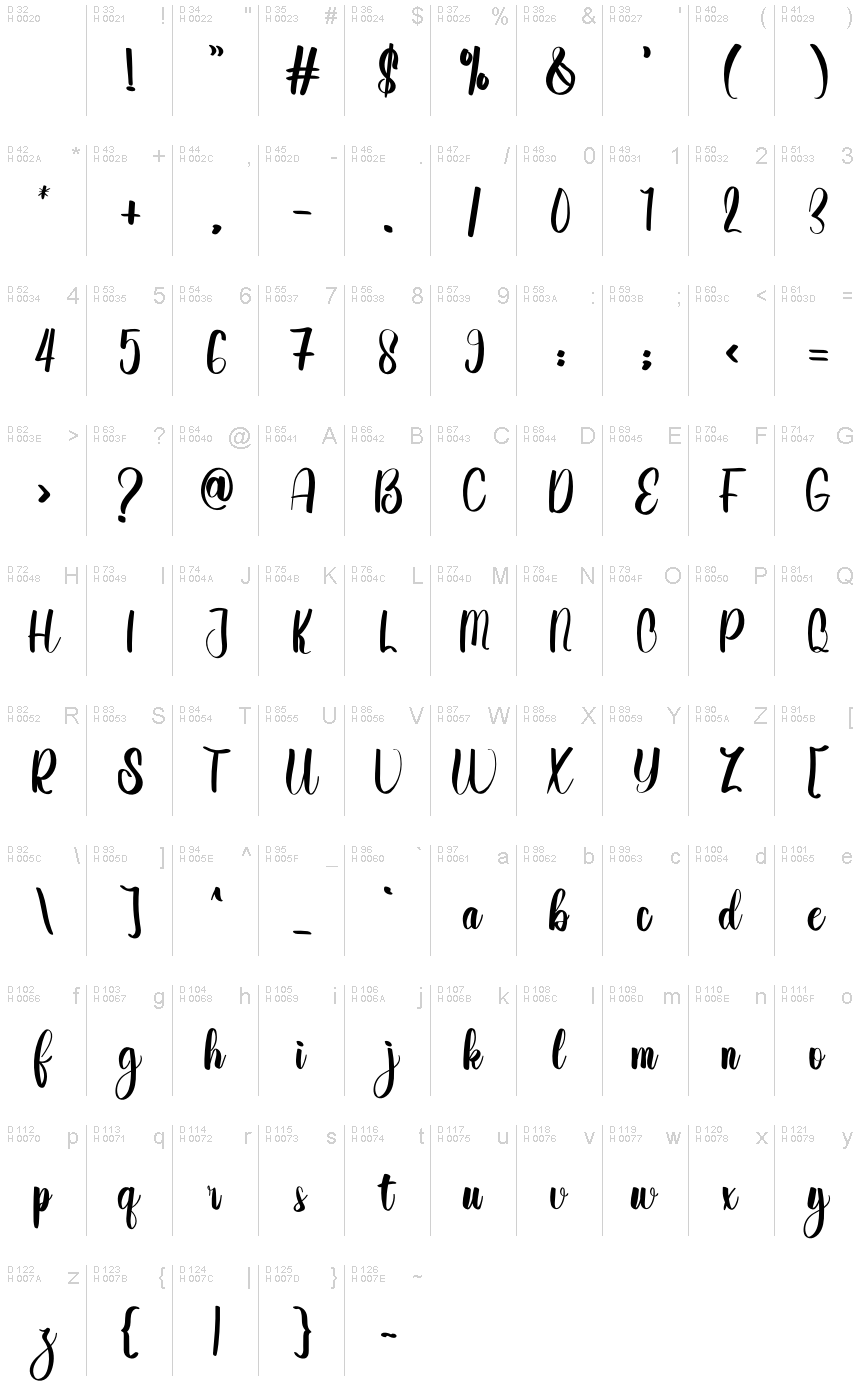
Smile
Smile, designed by PiPi Creative, is a font that exudes charm and approachability through its handwritten style. It captures the warmth and personable touch of a friendly note, making it an inviting choice for designs that require a dash of individuality and heart. The playful flow of its letters is reminiscent of a joyful doodle, effortlessly adding personality to any message it conveys.
Perfect for invitations, greeting cards, and branding projects that aim to establish a connection with the audience, Smile brings an air of lightheartedness and authenticity. Its aesthetic appeal lies in its ability to make words look as if they were penned with care and affection, instantly brightening up the visual landscape where formal typefaces fall short.